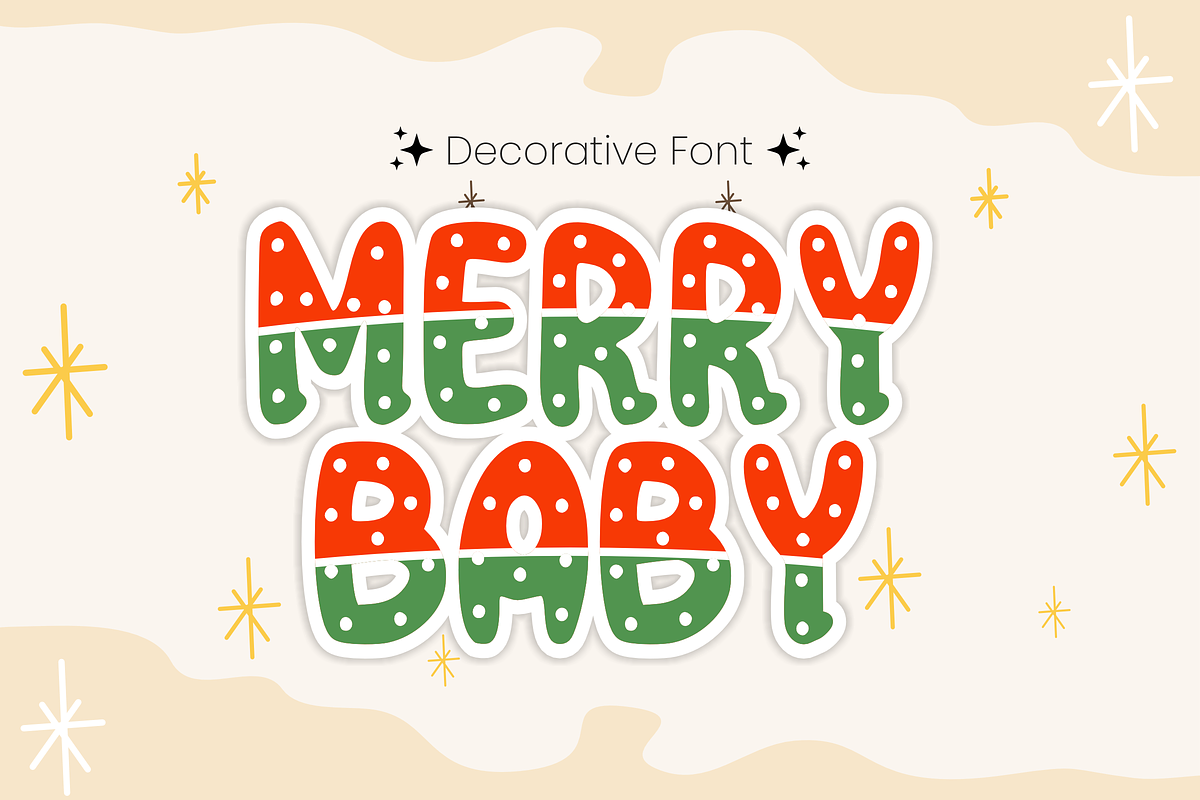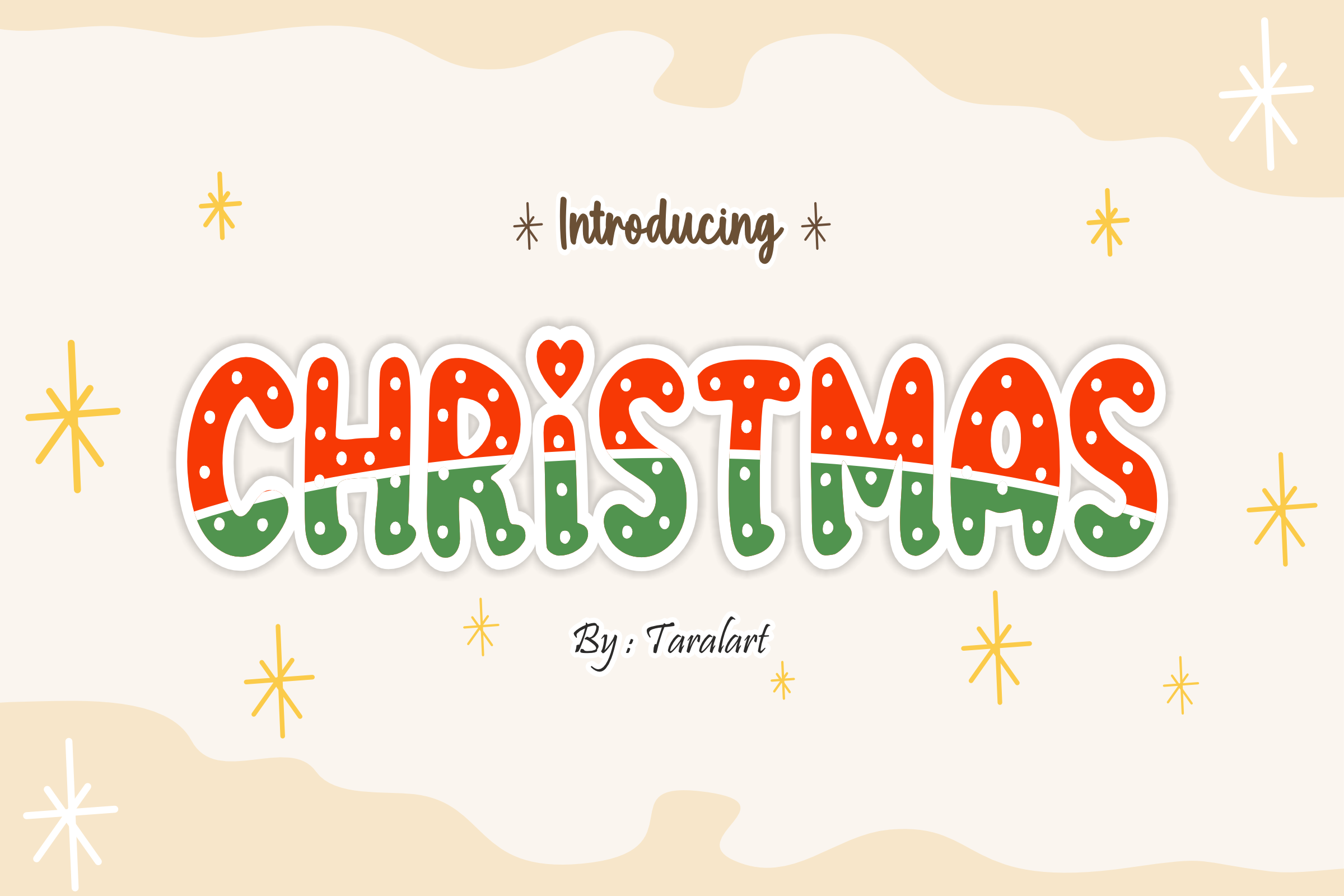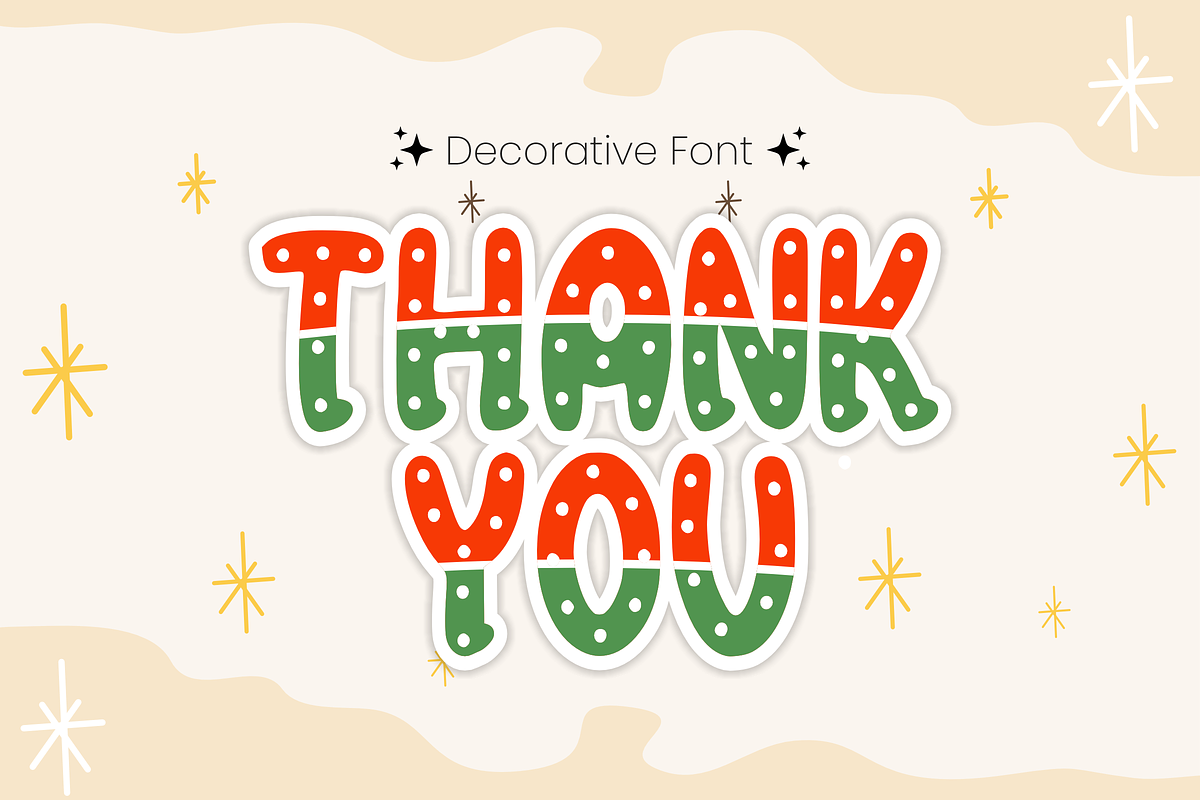
CHRISTMAS - Holiday Polka Dot Font
CHRISTMAS - Playful Holiday Polka Dot Font
Spread instant holiday cheer and festive magic with Christmas! This ultra-joyful display font features bold, rounded letterforms decorated with a whimsical polka dot snow pattern. It’s the ultimate choice for making your winter headlines, holiday greeting cards, and seasonal titles look incredibly warm, cozy, and full of celebration.
Perfect for holiday decor, teacher resources, and trend-focused crafting, Christmas masterfully combines a playful festive aesthetic with outstanding legibility. It is highly versatile, deeply expressive, and fully optimized for flawless performance across digital cutting machine tools and high-quality print workflows.
All-Caps Character Set (Chunky, happy holiday uppercase letters)
Numbers & Basic Punctuation (Essential, simple symbols included)
Cricut, Silhouette, & DIY Holiday Craft Sublimation Projects ✂️
Christmas Greeting Cards, Gift Tags, & Winter Party Invitations 💌
Teacher Resources, Classroom Decor, & School Holiday Printables 🎒
Festive Product Packaging, Bakery Labels, & Toy Branding 🎁
Custom Die-Cut Stickers, Social Media Graphics, & Holiday Apparel 👕